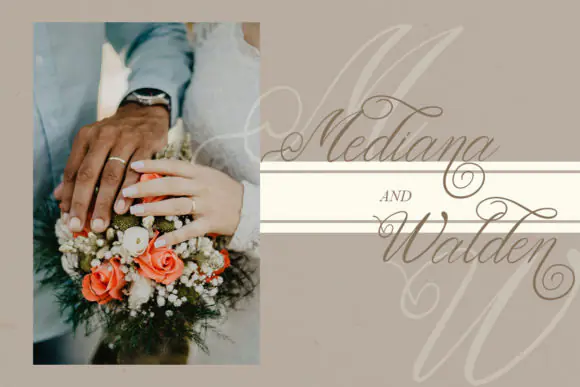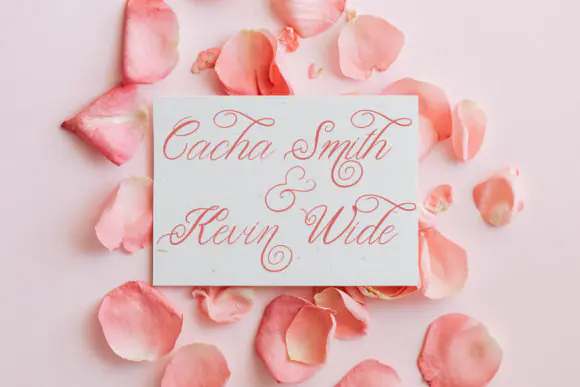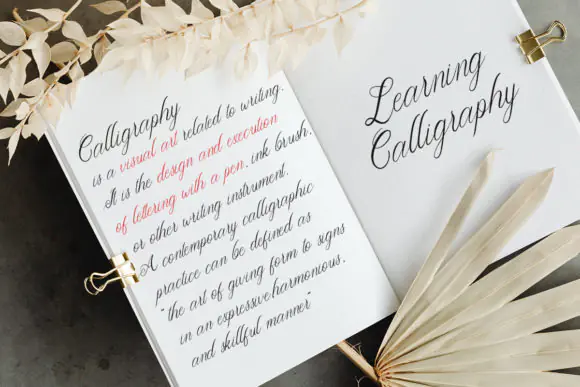
Create elegant, eye-catching, and beautifully expressive designs with Letter Calligraphy Font, a classic script typeface designed with graceful letterforms and unique alternate variations. This font brings a refined handwritten style to your projects, making every word feel stylish, personal, and visually appealing.
Letter Calligraphy is perfect for designers, wedding creators, boutique brands, small business owners, crafters, and digital product sellers who want to create premium typography with a classic calligraphy look. Its elegant script style works beautifully for logos, branding, quotes, invitations, greeting cards, stationery, product labels, packaging, social media graphics, book covers, and personalized gifts.
The font includes alternate variations that help your typography stand out from ordinary script fonts. Every letter carries a unique and beautiful touch, making your design feel more alive, artistic, and memorable.
Design Style:
Classic, calligraphy, script, elegant, handwritten, graceful, decorative, romantic, unique, artistic, refined, stylish, beautiful, and expressive.
Use Letter Calligraphy Font to give your creative projects a classic handwritten charm and create typography that looks elegant, polished, and full of personality.